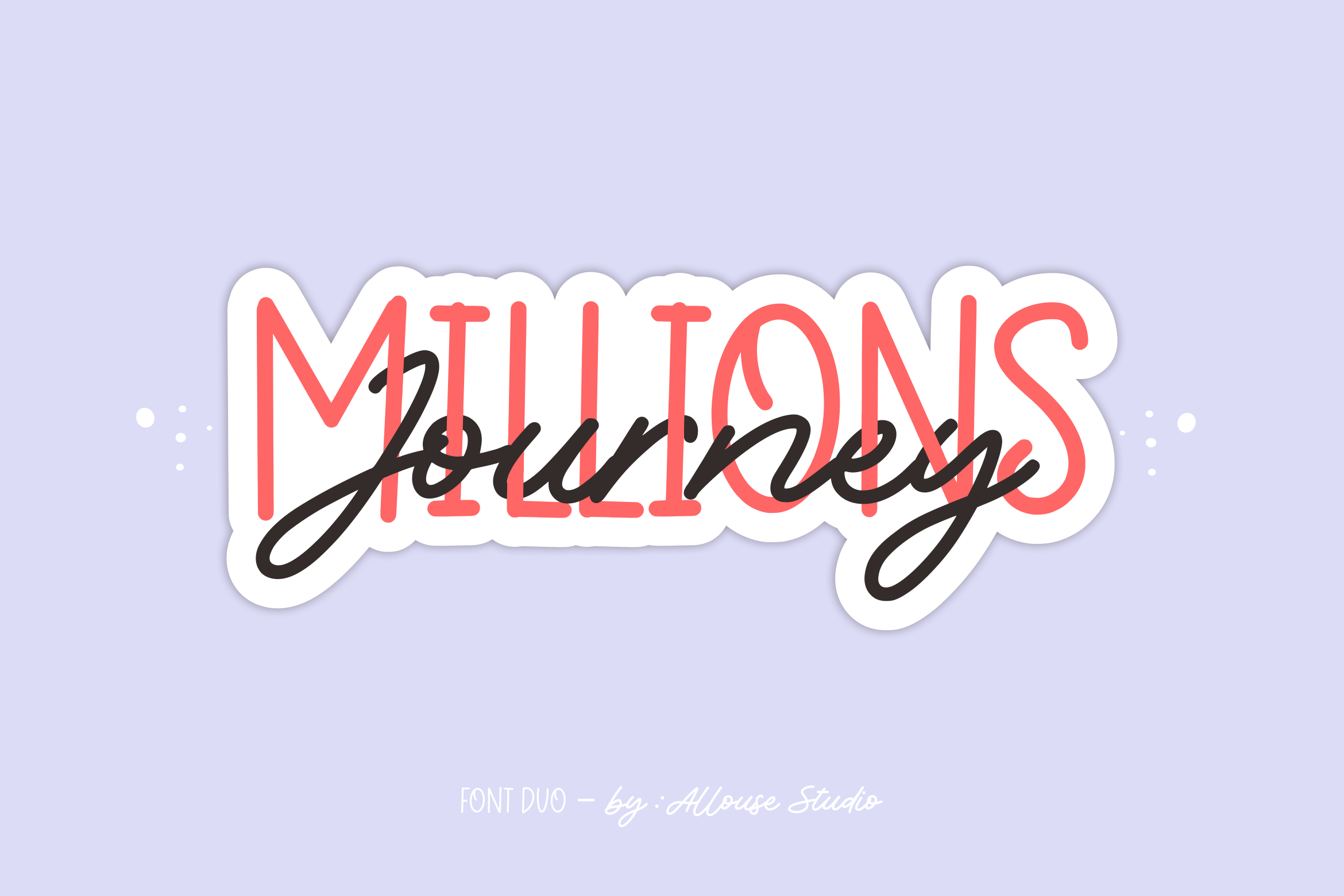
Millions Journey Font
Introducing by Allouse.Studio
Proudly Present, Millions Journey.
Millions Journey is perfect for product packaging, branding project, megazine, social media, wedding, or just used to express words above the background.